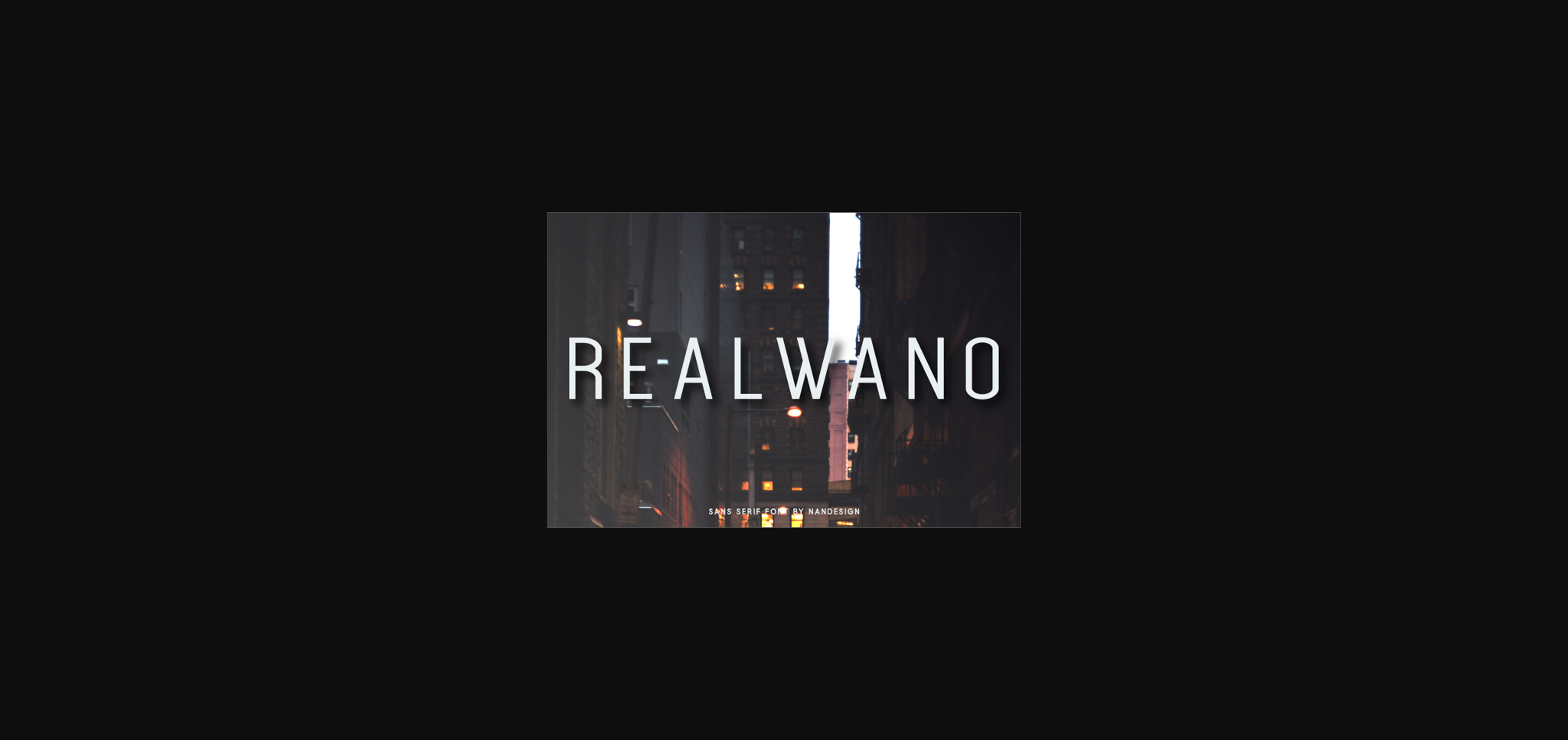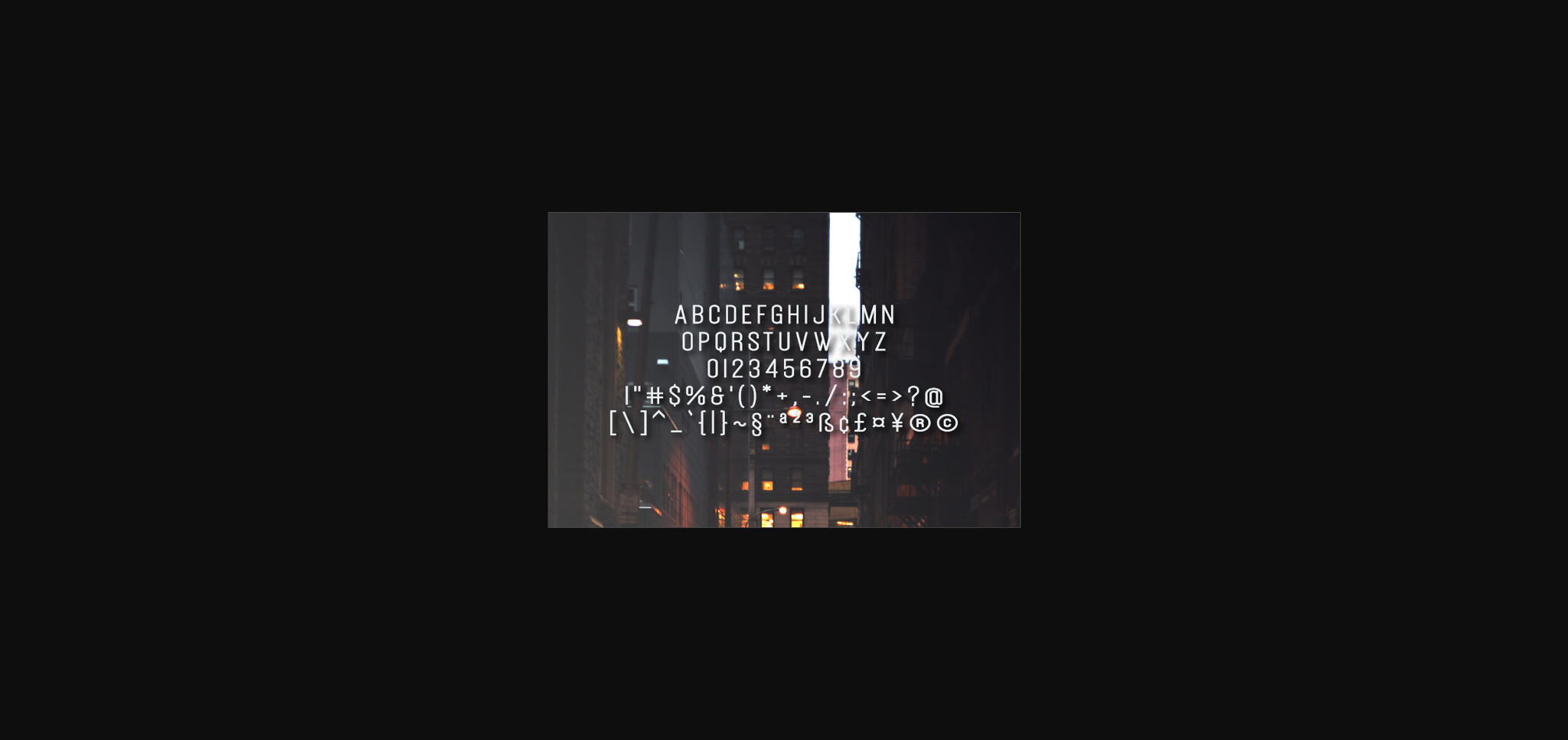
Realwano is a powerful sans serif font. Clean and a modern, this font is the perfect fit for all of your logos, branding, social media, and crafty DIY projects.